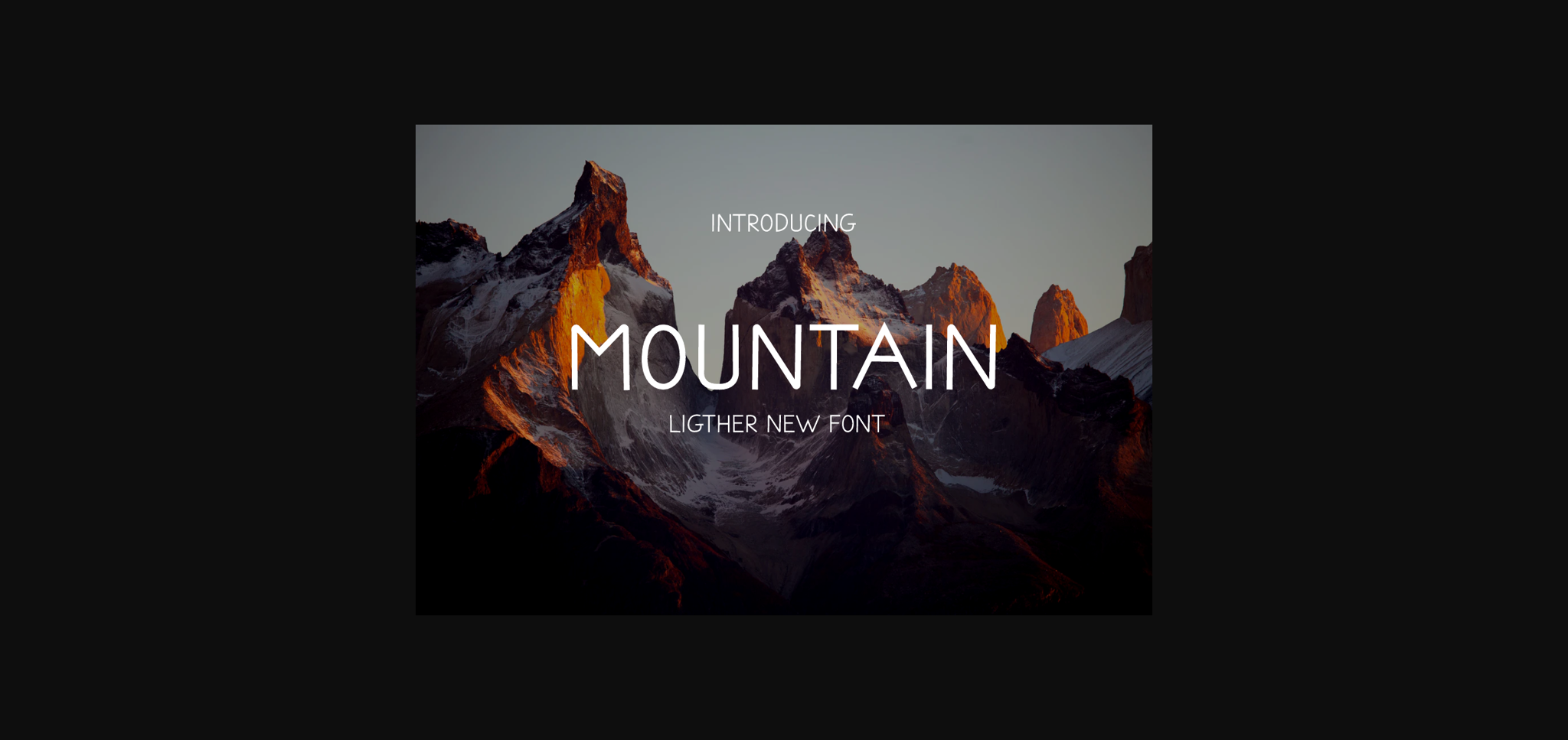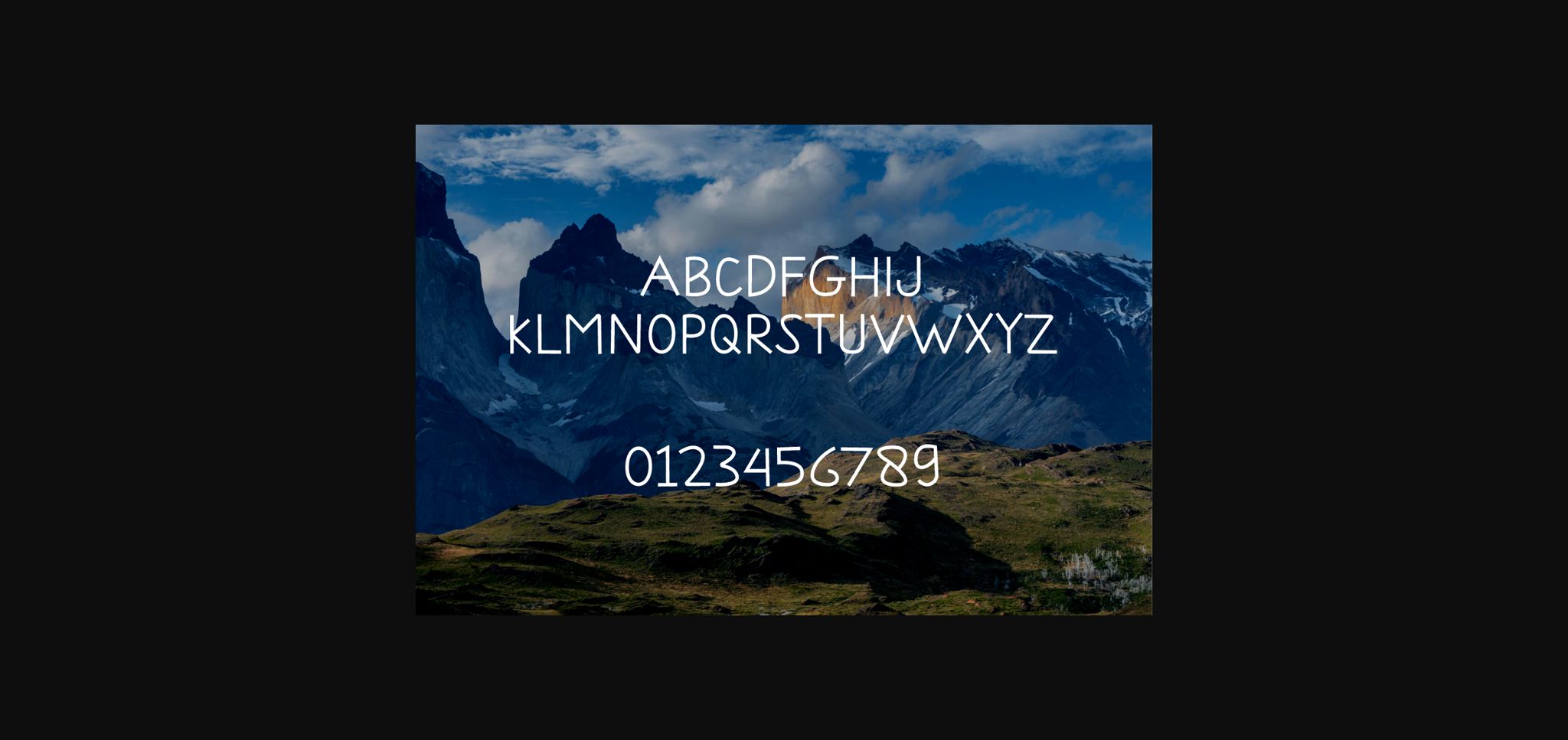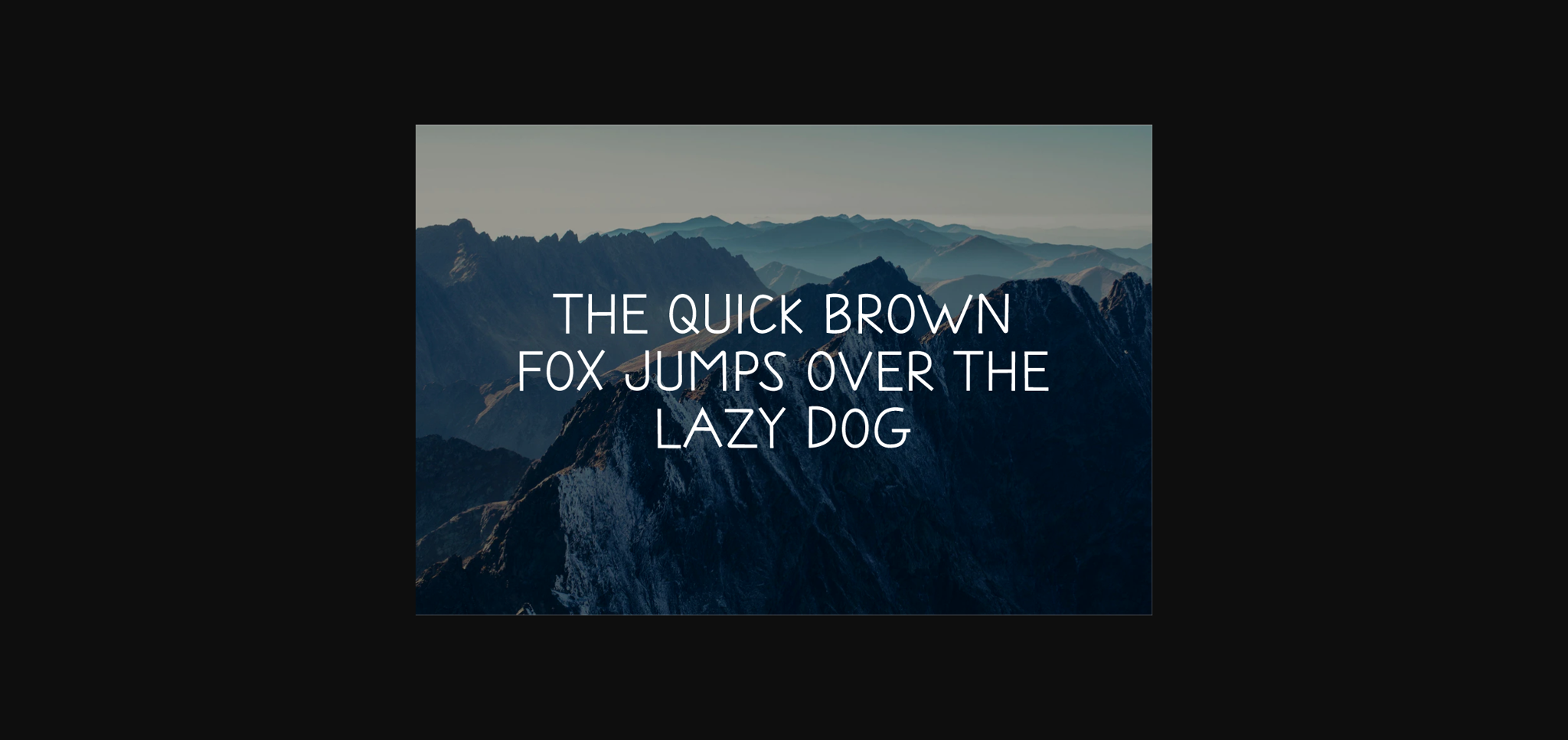
HomeSans Serif FontsMountain Font Sans Serif Fonts Mountain Font FacebookXPinterestWhatsApp 1 of 5 ... Mountain Font Poster 2... Mountain Font Poster 3... Mountain Font Poster 4... Mountain Font Poster 5... About Mountain Font Mountain is a cool, organic and simple sans serif font. It can easily be matched to an incredibly large set of projects, so add it to your creative ideas and notice how it makes them stand out! DOWNLOAD NOW People also explored Sunoise Font Ferpiqi Font Marshmellow Font Voetter Bryan Coyne Font Hello Shofia Font Glue Stick Font Krakatau Mountain Font Cars Font 312 0 TagsMountain Font Previous articleBalmore FontNext articleThe Quest Font LEAVE A REPLY Cancel reply Comment: Please enter your comment! Name:* Please enter your name here Email:* You have entered an incorrect email address! Please enter your email address here Website: Save my name, email, and website in this browser for the next time I comment. Personal Use Free Bukhari Script Personal Use Free Read more about this font Concrete Wall Personal Use Free Read more about this font Hollster Personal Use Free Read more about this font Baveuse Personal Use Free Read more about this font BLOG Using Fonts in Digital Marketing: Tips to Strengthen Your Brand Identity In the realm of digital marketing, every visual element plays a crucial role in shaping a brand's identity, and fonts are no exception. The... Where to Buy American Fonts Online in 2024 How to Install and Use Fonts on Windows, macOS, and Web Projects Exploring Font Trends